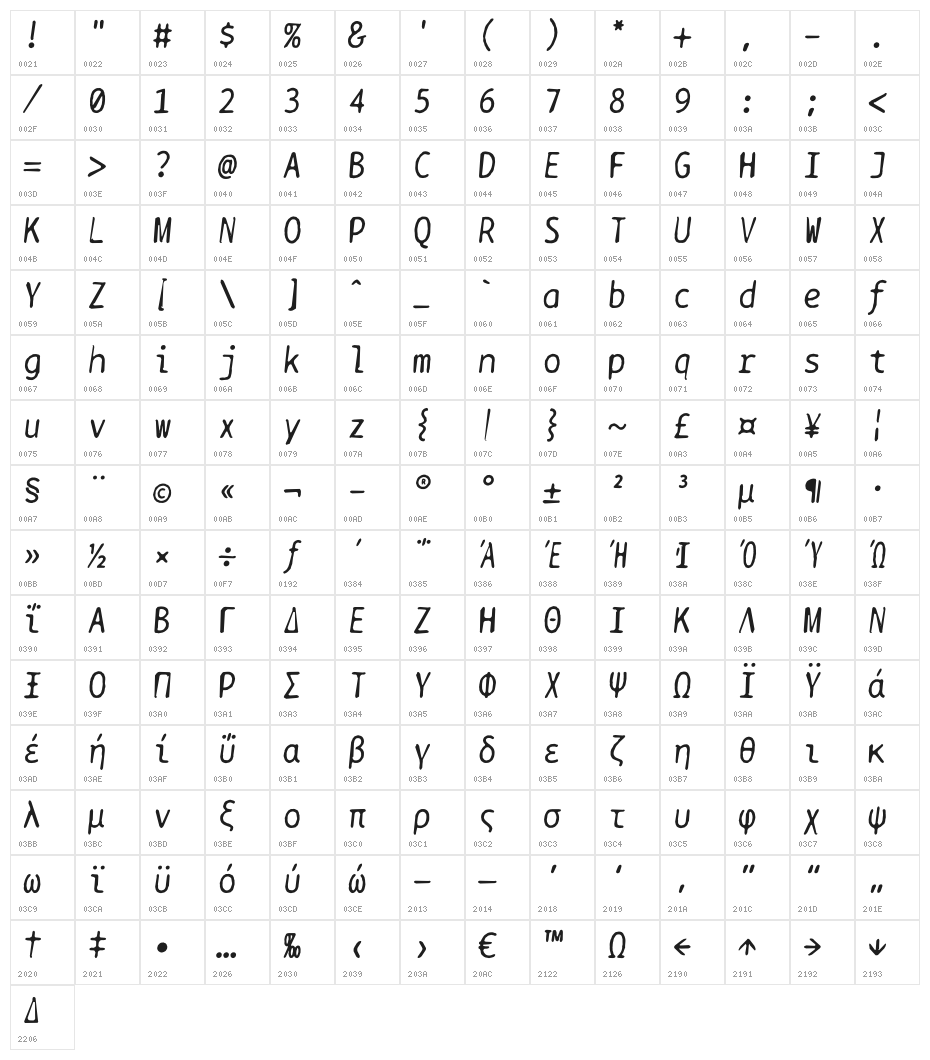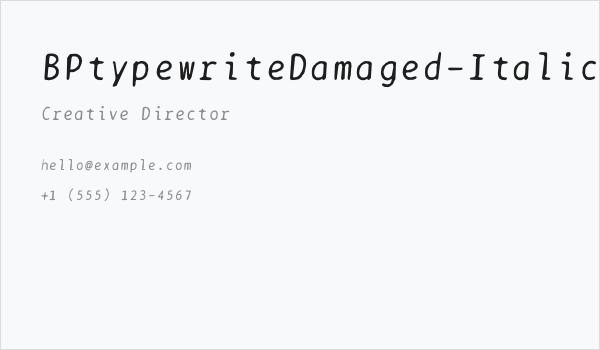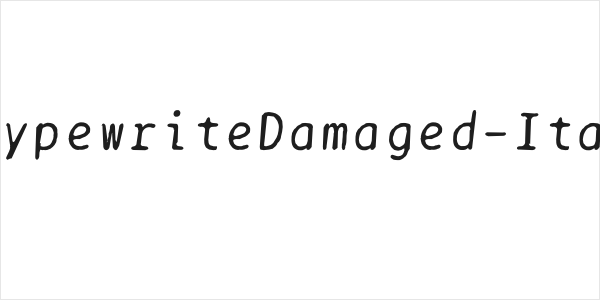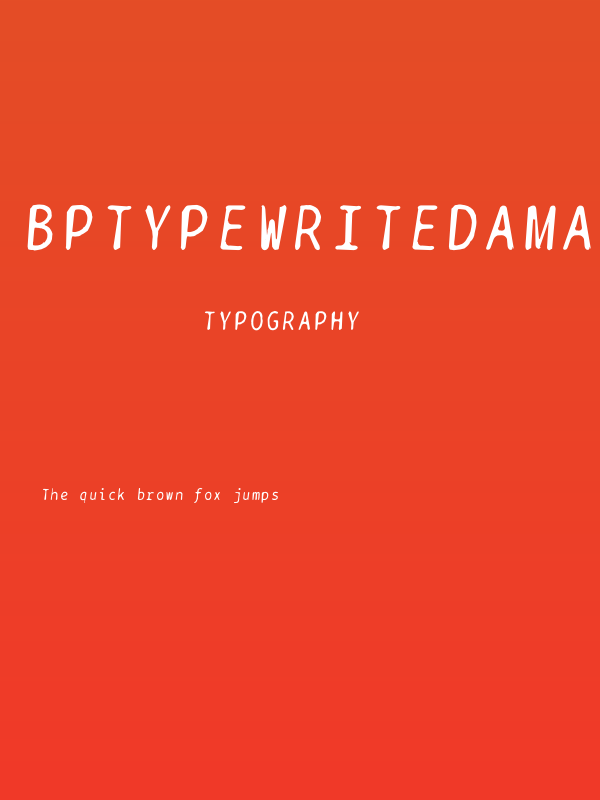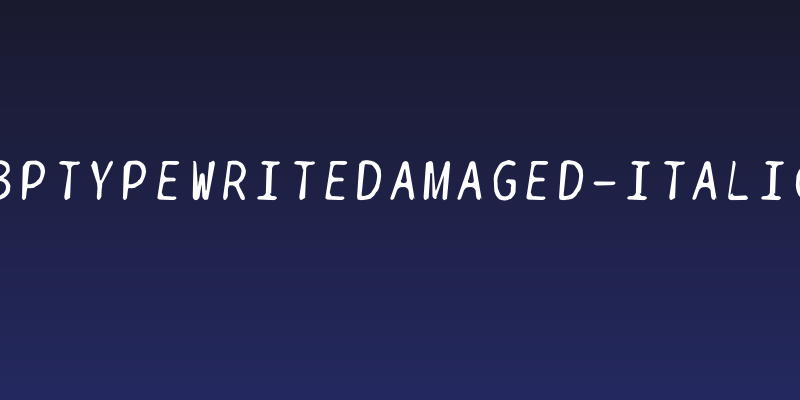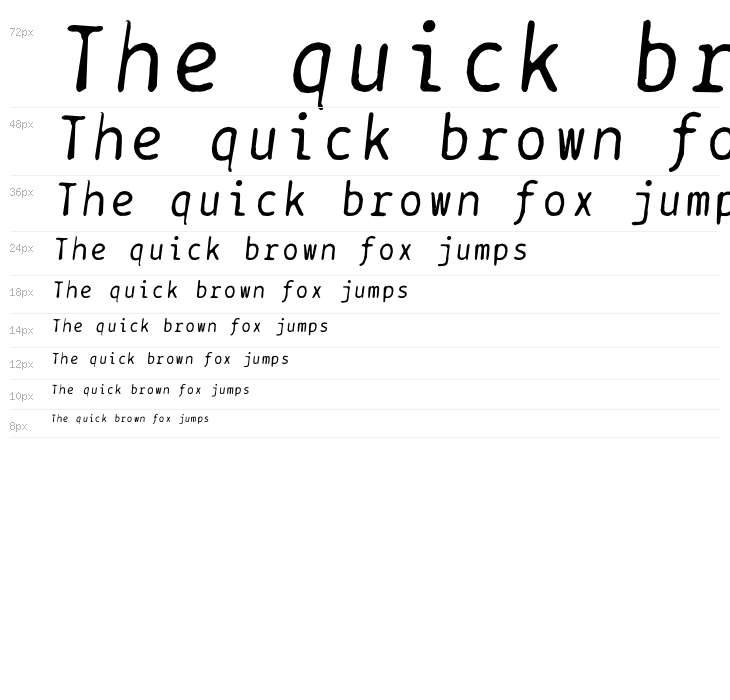
BPtypewriteDamaged-Italic Font
BPtypewriteDamaged-Italic Description
This font exudes a vintage typewriter aesthetic with a distinctly worn and imperfect appearance. The characters are slightly slanted, giving it an italicized look, while maintaining a monospaced structure typical of old typewriters. Each letter has unique imperfections, adding to its charm and authenticity. The strokes are uneven, with some letters appearing bolder than others, enhancing the distressed look. The numerals and special characters follow the same style, ensuring consistency across the typeface. This font is ideal for projects that require a retro or nostalgic feel, capturing the essence of a bygone era.
| Use Case | Headlines, Logos, Decorative text |
| Proposed Projects | Ideal for vintage-themed designs, retro posters, typewriter art, and nostalgic branding. |